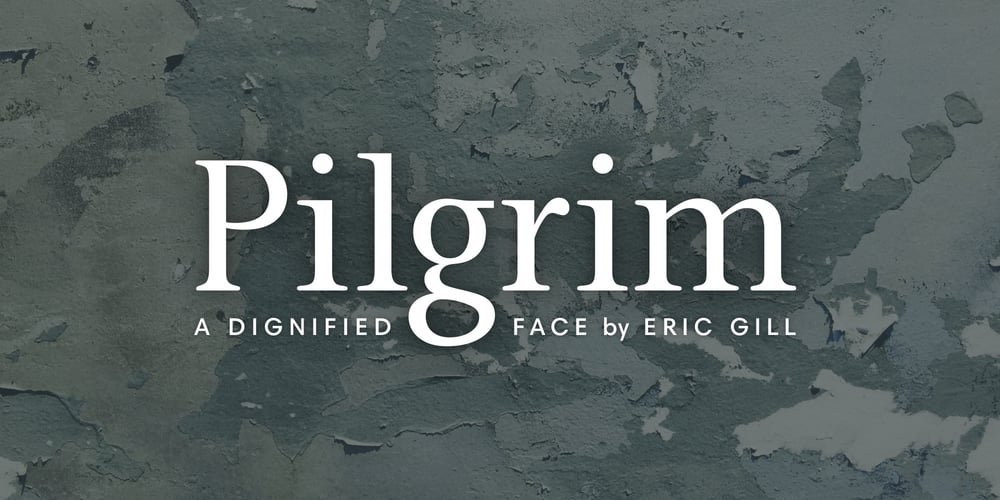
Pilgrim Font Family was designed by Eric Gill, Walter Tracy, Linotype Design Studio and published by Linotype. Pilgrim contains 2 styles and family package options. Pilgrim is a re-cut of a Linotype face that Eric Gill originally designed for a book published by the Limited Edition Club of New York. Admired for its tranquil dignity, the Pilgrim type is both firm and elegant. Its general appearance resembles that of Gill’s Joanna font family. The contrast of the font is not very strong. The serifs are bracketed. Eric Gill, who designed the type on which Pilgrim is closely based, observed one sort of model for his lettering – the incised monumental letter of Roman origin. This is clearly seen in his capitals, but is also true of his lowercase letters, which have little of the calligraphic or engraved qualities of most other type designs. Gill’s types are Roman in the classic sense, yet also particular to Gill himself.